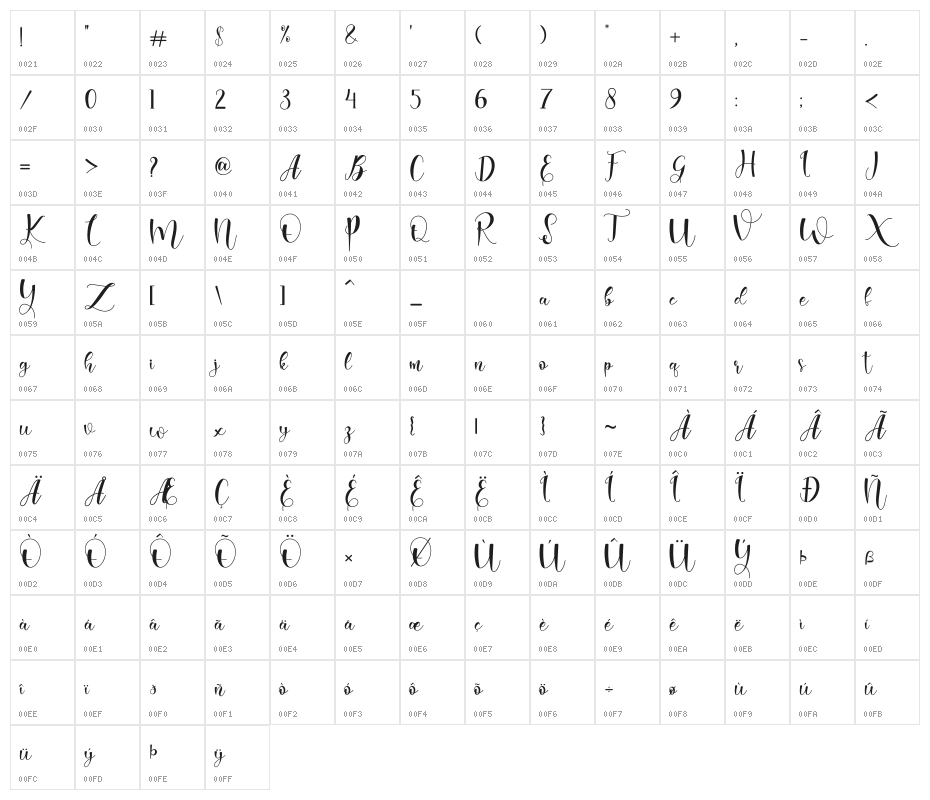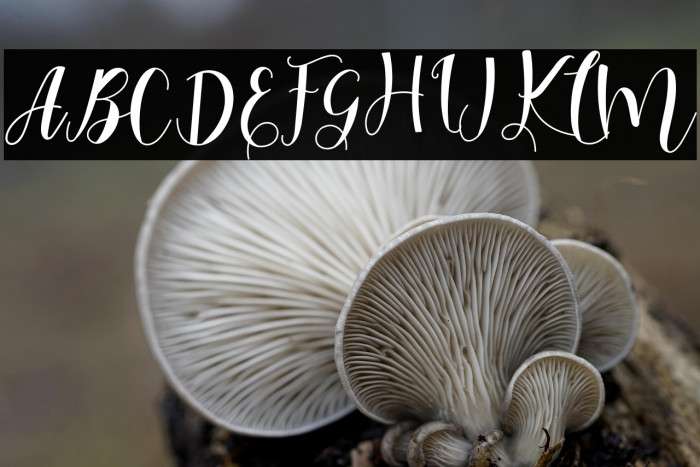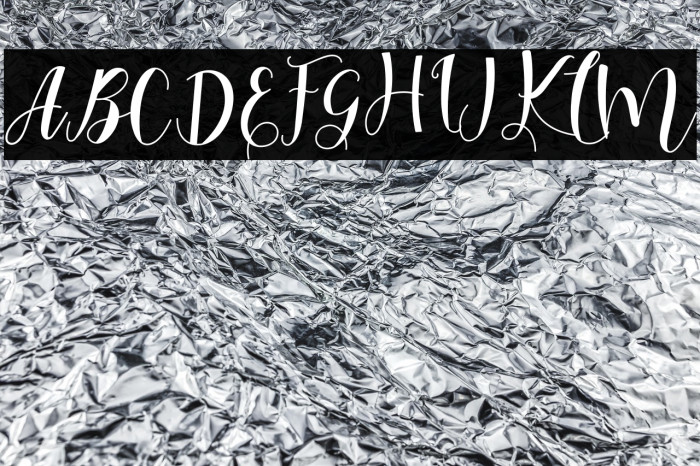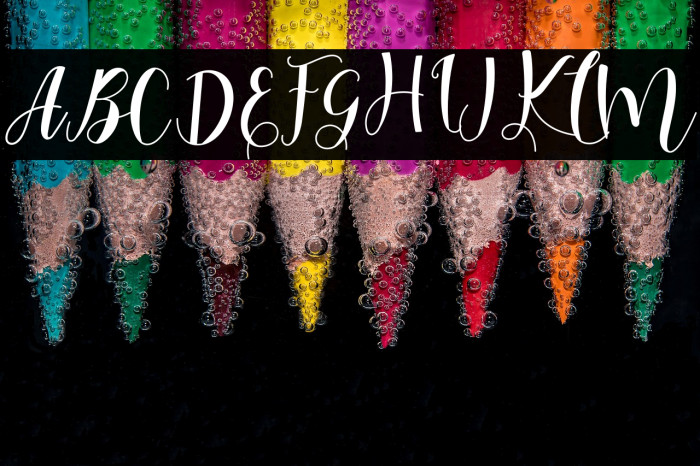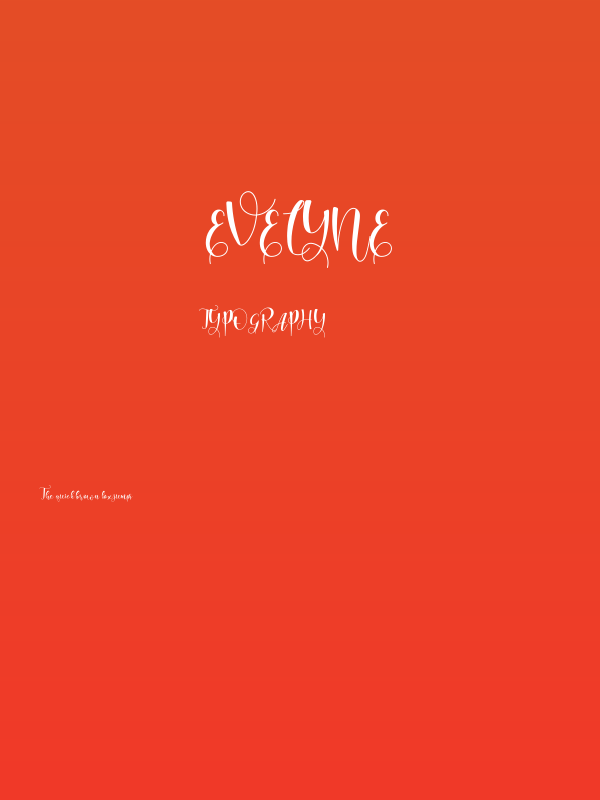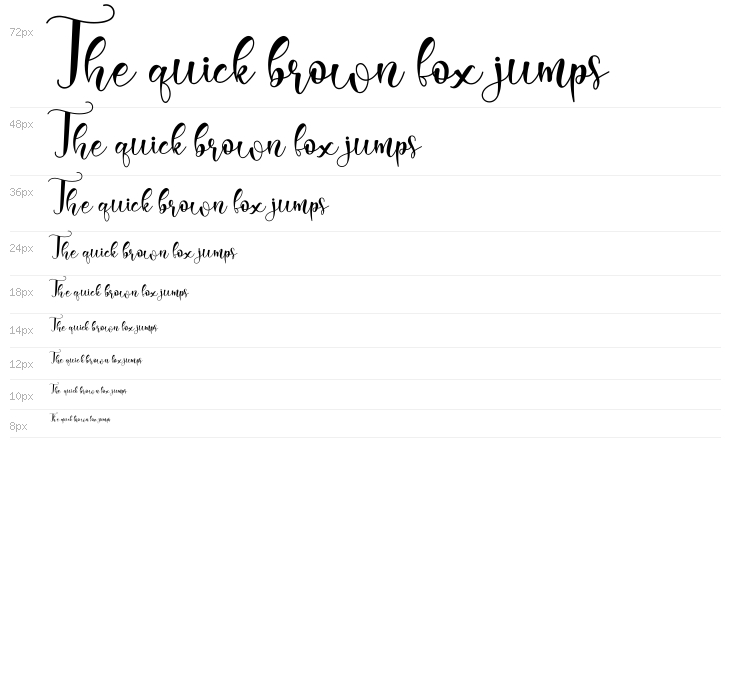
evelyne Font
evelyne Description
This font exudes a playful and elegant charm, characterized by its flowing, cursive script style. The uppercase letters are particularly ornate, with exaggerated loops and flourishes that give them a whimsical feel. The lowercase letters maintain a consistent flow, complementing the uppercase with their smooth curves and delicate strokes. The numerals are bold and slightly more structured, providing a nice contrast to the letters. Special characters are creatively designed, maintaining the overall aesthetic of the font. This font is perfect for projects that require a touch of elegance and creativity, such as wedding invitations, greeting cards, or branding for luxury products.
| Proposed Projects | Ideal for wedding invitations, greeting cards, luxury branding, and creative projects. |